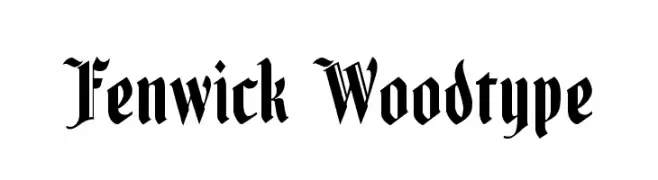
A bold, blackletter-style font with sharp angles and dramatic strokes.
A classic blackletter font with bold, angular letterforms and a narrow design.
A bold, gothic-style font with intricate details and a medieval flair.
An ornate blackletter font with intricate, angular designs and a medieval aesthetic.
A bold blackletter font with sharp, angular strokes and ornate detailing.